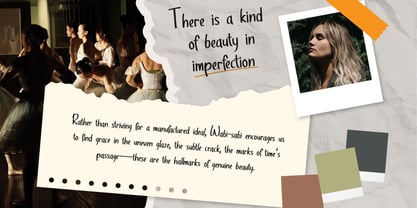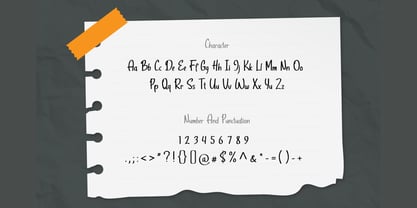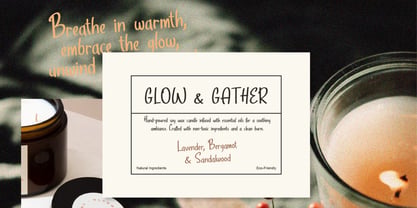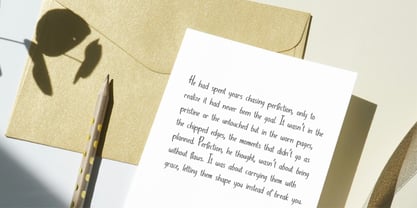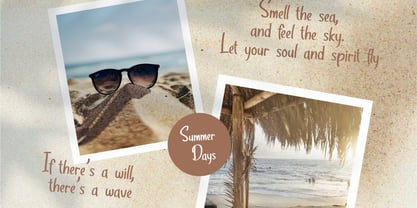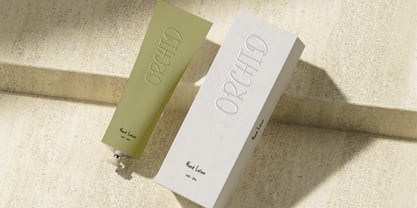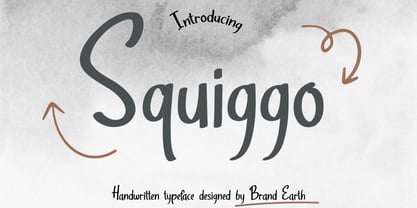
Squiggo
by Brandearth
The Squiggo Font Family was designed by Moch Rasjid Wiyono and published by Brandearth. Squiggo contains 1 styles. More about this family
Squiggo is an organic handwritten typeface inspired by the beauty of imperfection and natural expression. Designed with soft curves, uneven strokes, and subtle irregularities, this font captures an authentic hand-drawn feel that reflects warmth and personality. Squiggo is highly relevant for creative industries that value authenticity and emotional connection. Perfect for lifestyle brands, fashion labels, beauty products, inspirational quotes, social media graphics, wedding stationery, art portfolios, handmade product packaging, blog headers, and personal branding projects. Its natural handwritten character adds warmth and charm to both digital and print designs.
Designers: Moch Rasjid Wiyono
Foundry: Brandearth